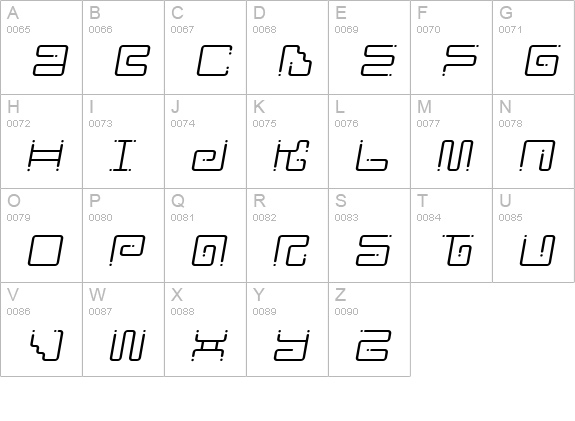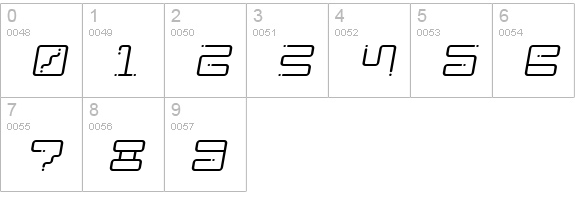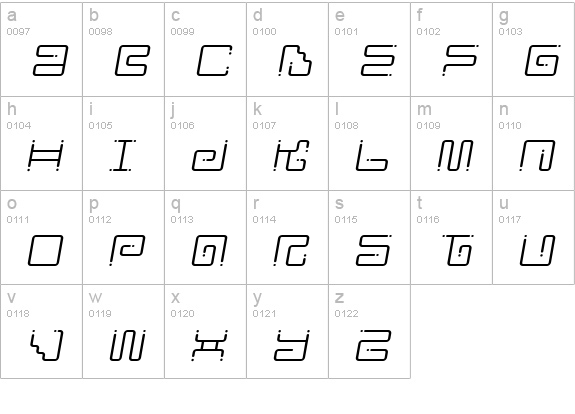
Iron Lounge Dots 2 is a modern and stylish font that exudes a sense of sophistication and elegance. Its unique design, inspired by the industrial aesthetic, makes it perfect for a wide range of creative projects. From logos and branding to invitations and social media posts, this font will add a touch of class to any design. What sets Iron Lounge Dots 2 apart is not just its sleek and contemporary look, but also the fact that it is completely free to download. Yes, that's right - this high-quality font can be yours at no cost. It's a fantastic opportunity to elevate your design work without breaking the bank. Whether you're a professional designer or a hobbyist, Iron Lounge Dots 2 offers versatility and flexibility. The clean lines and bold letterforms make it perfect for both headlines and body text, ensuring readability while making a statement. Additionally, the dotted style adds a unique twist, adding visual interest to any composition. To get your hands on this extraordinary font, simply head over to FontsMarket.com. There, you will find a vast collection of fonts, including Iron Lounge Dots 2, all available for free download. FontsMarket.com is a trusted source for fonts, offering a wide variety of styles and designs to suit any project. Don't miss out on the opportunity to enhance your design work with Iron Lounge Dots 2. Download this remarkable font today and watch your creations come to life with a touch of elegance and sophistication.